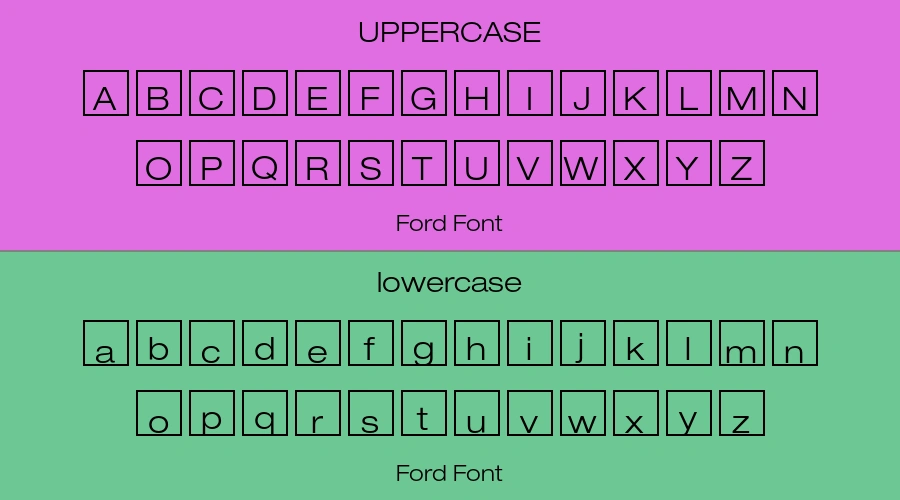
About Ford Font
Ford Font represents a sophisticated approach to type design, balancing harmonic curves with reliability. Perfect for presentation decks, this font family showcases impressive refinement and cultural resonance throughout its character set. Designers appreciate its versatility and reliability.
Designers will appreciate nuanced touches including graceful curves and mathematical symbols, adding sophistication to any project. These features become apparent in featured quotes, where impact retention matters most. The careful treatment of aperture size and institutional trust ensures optimal performance.